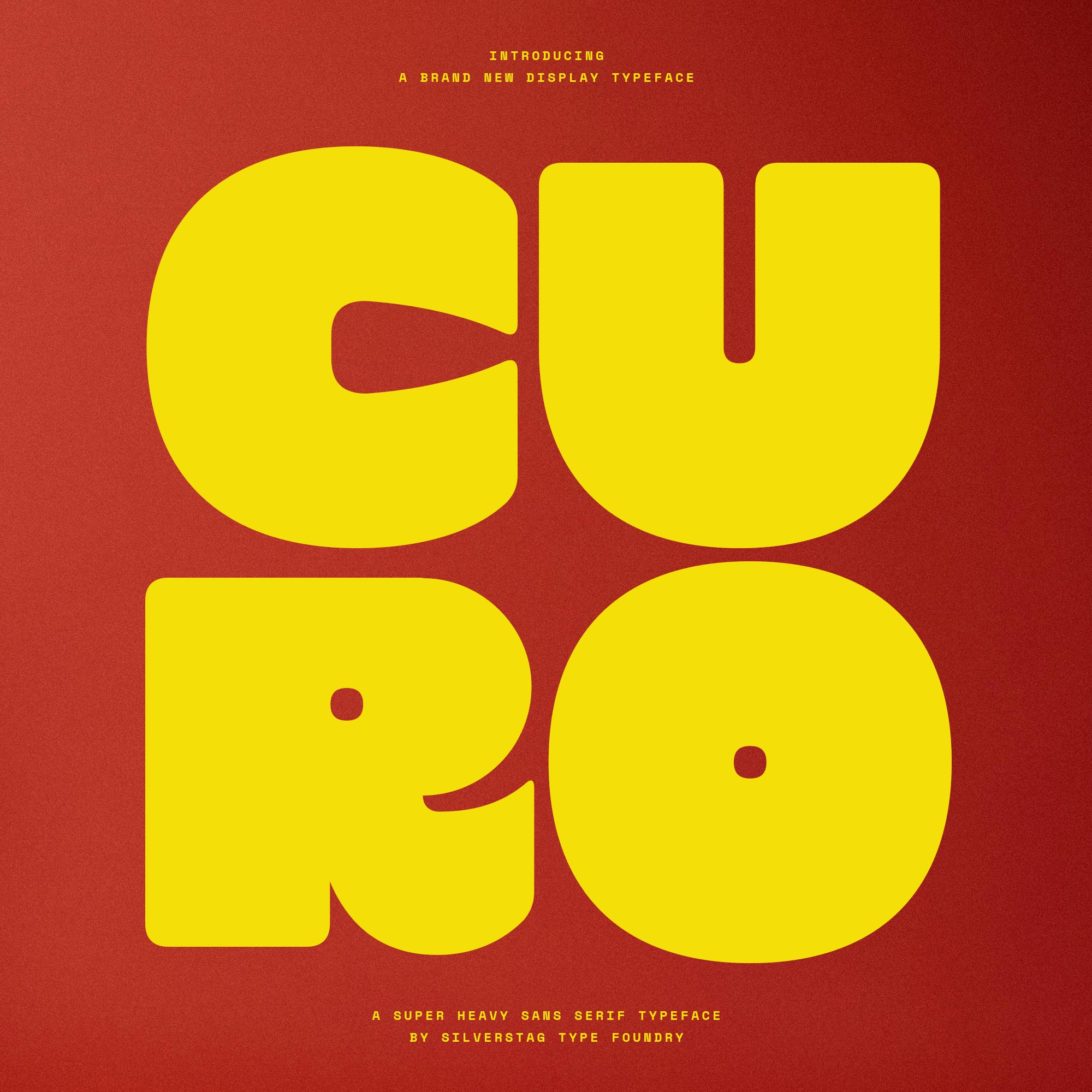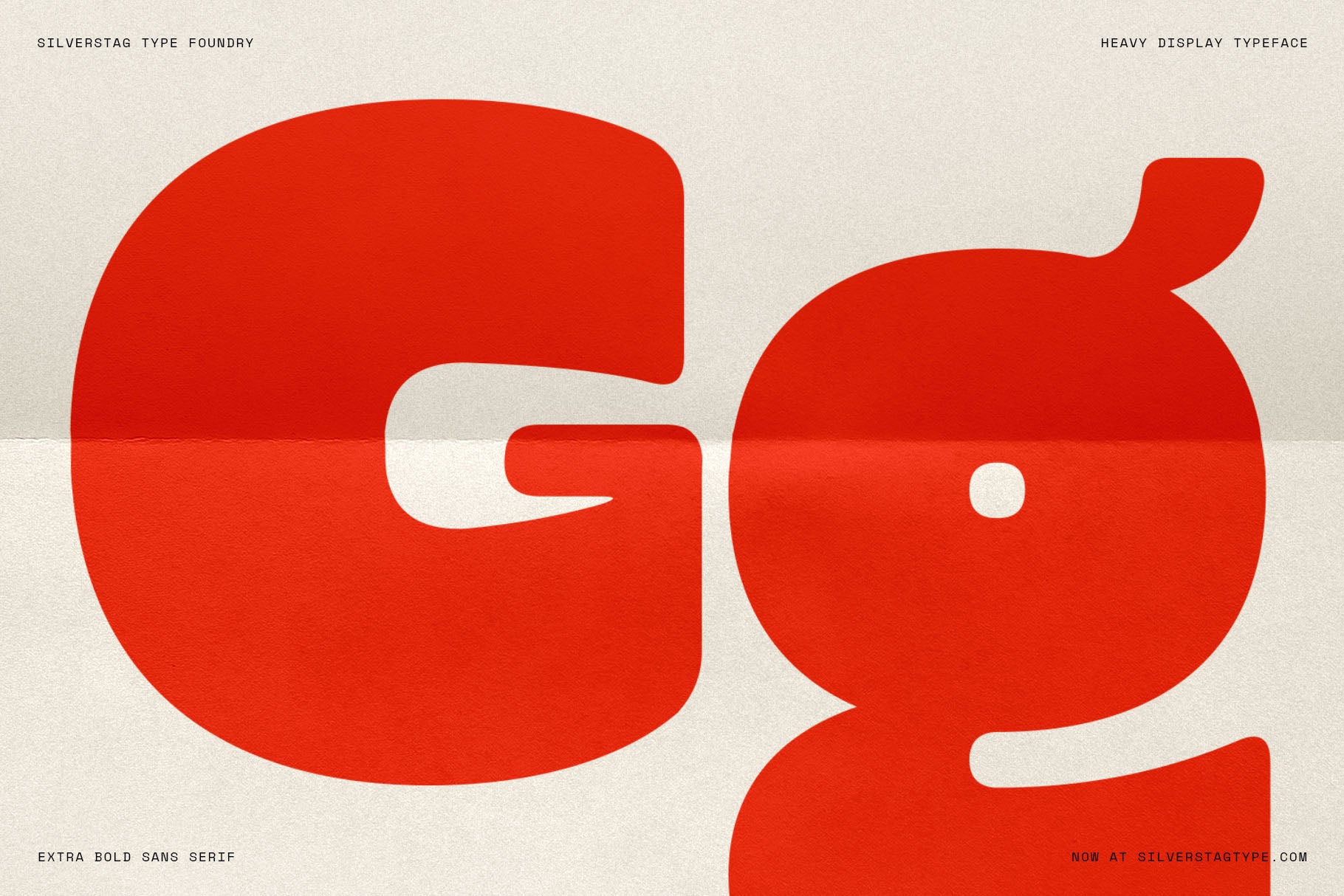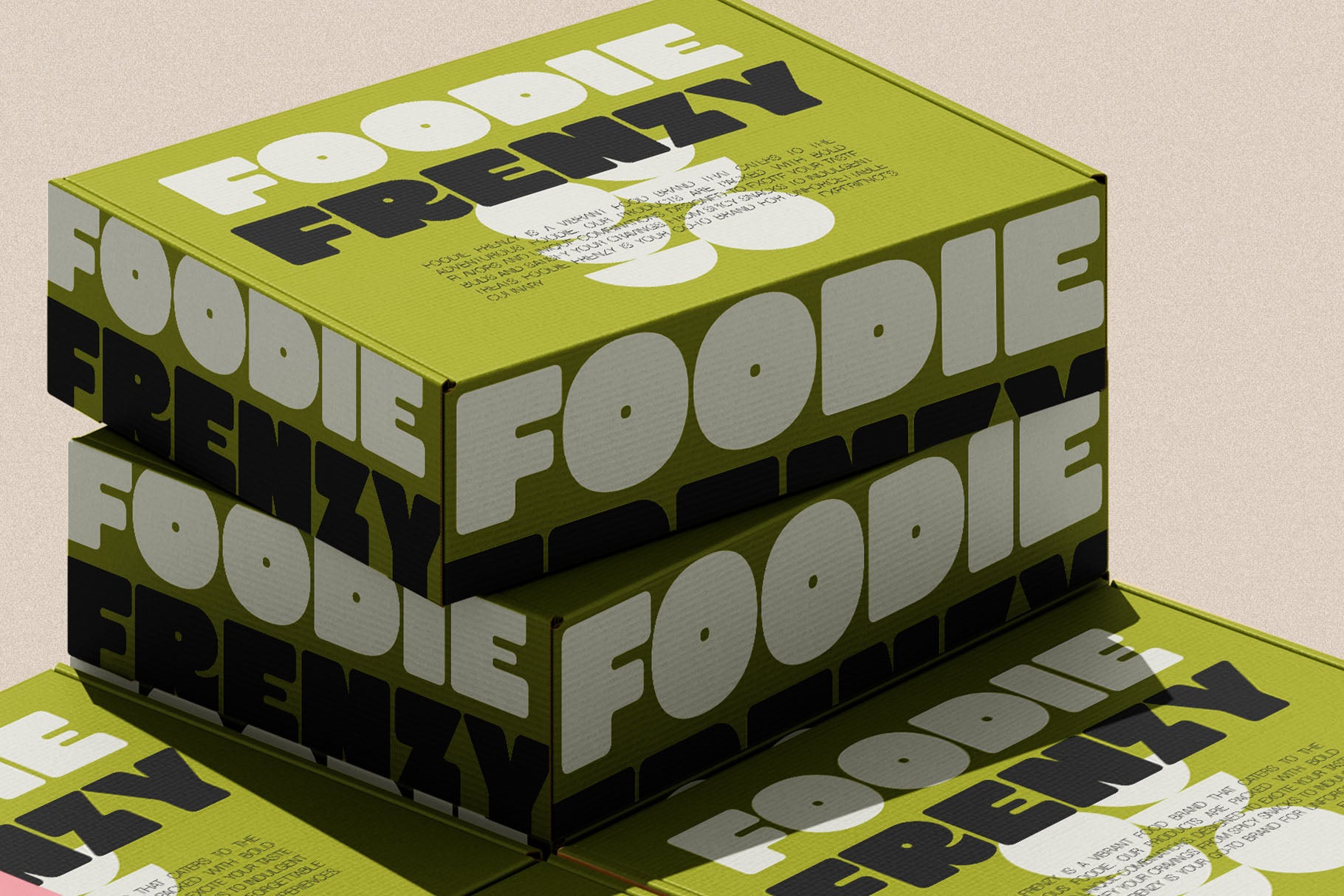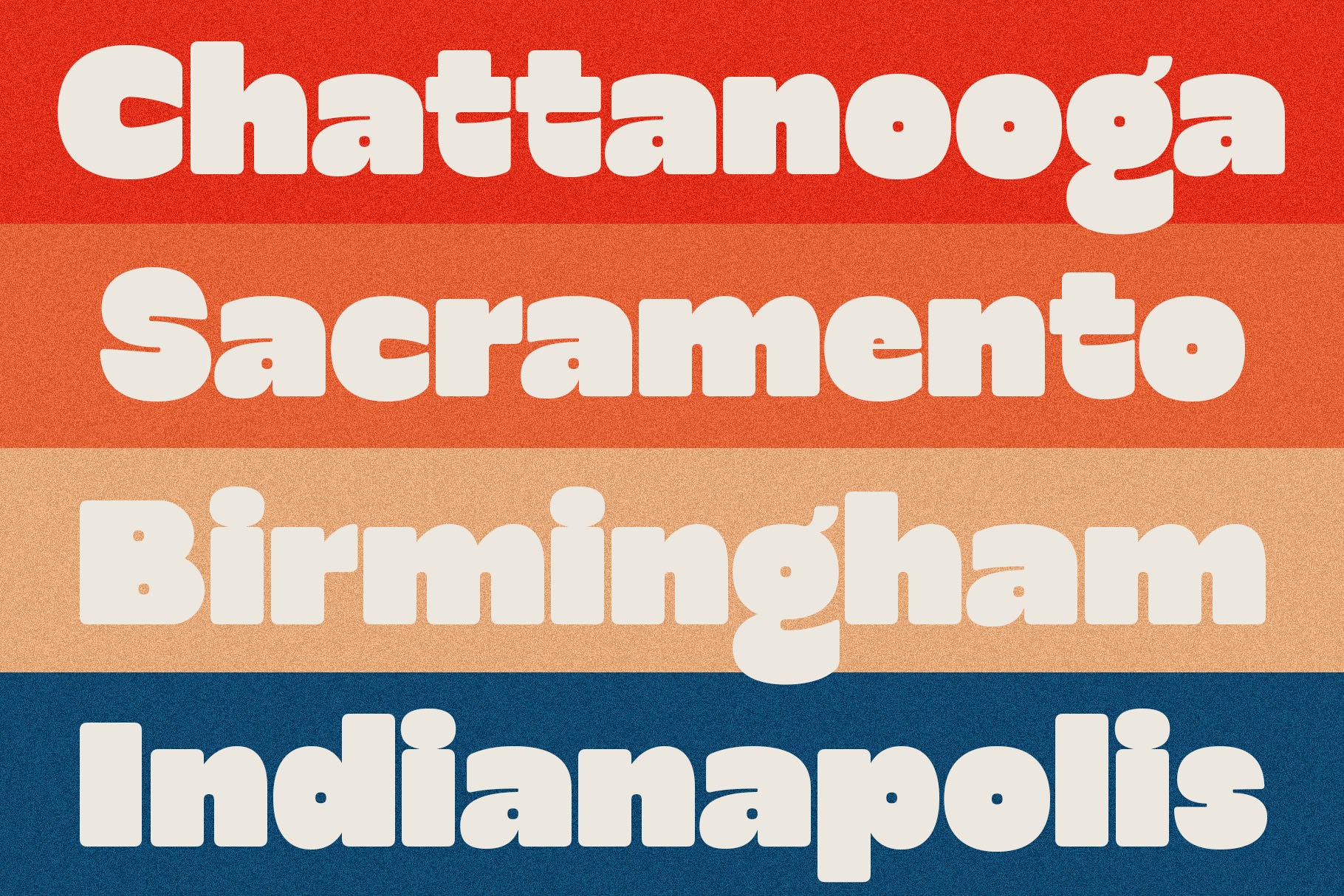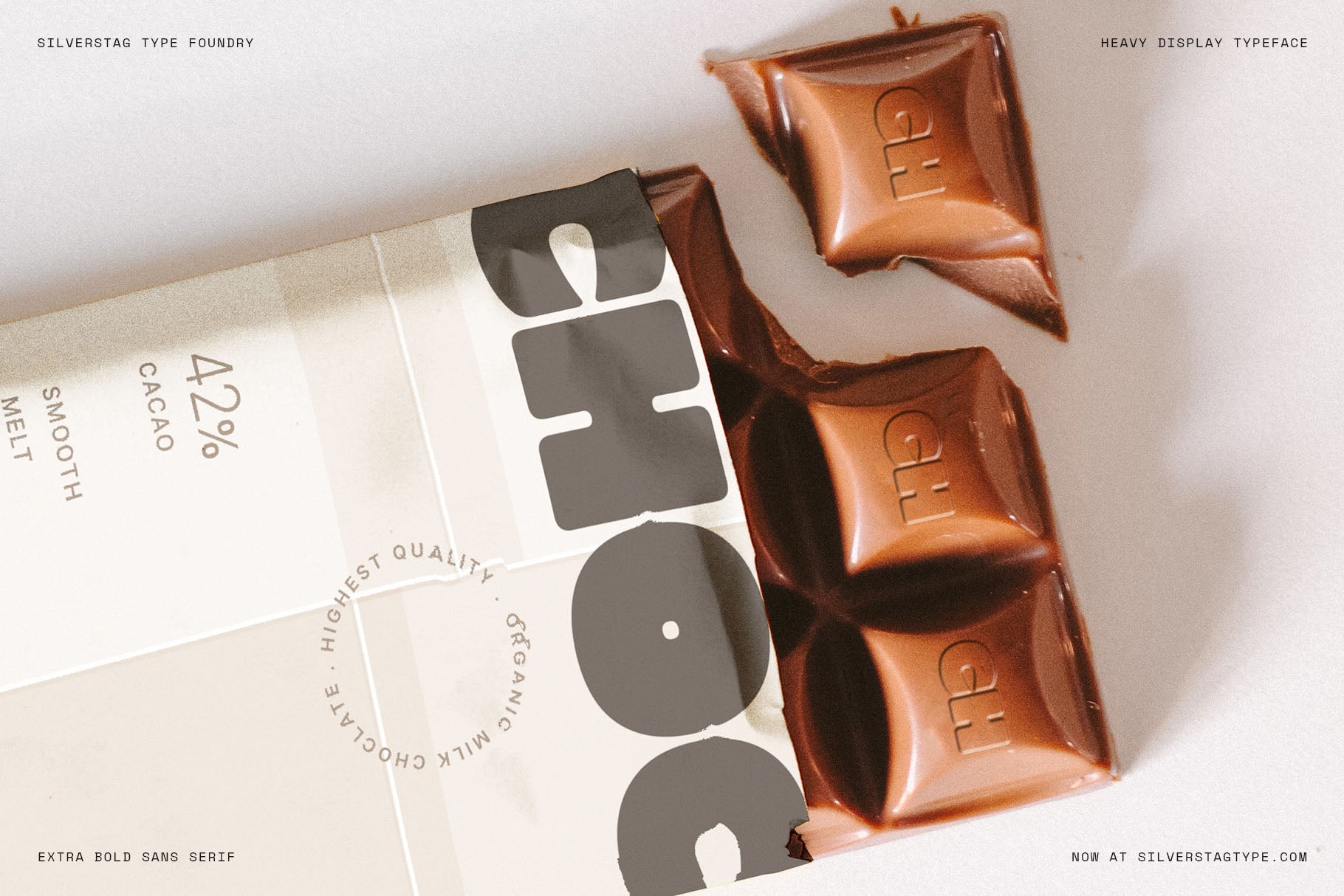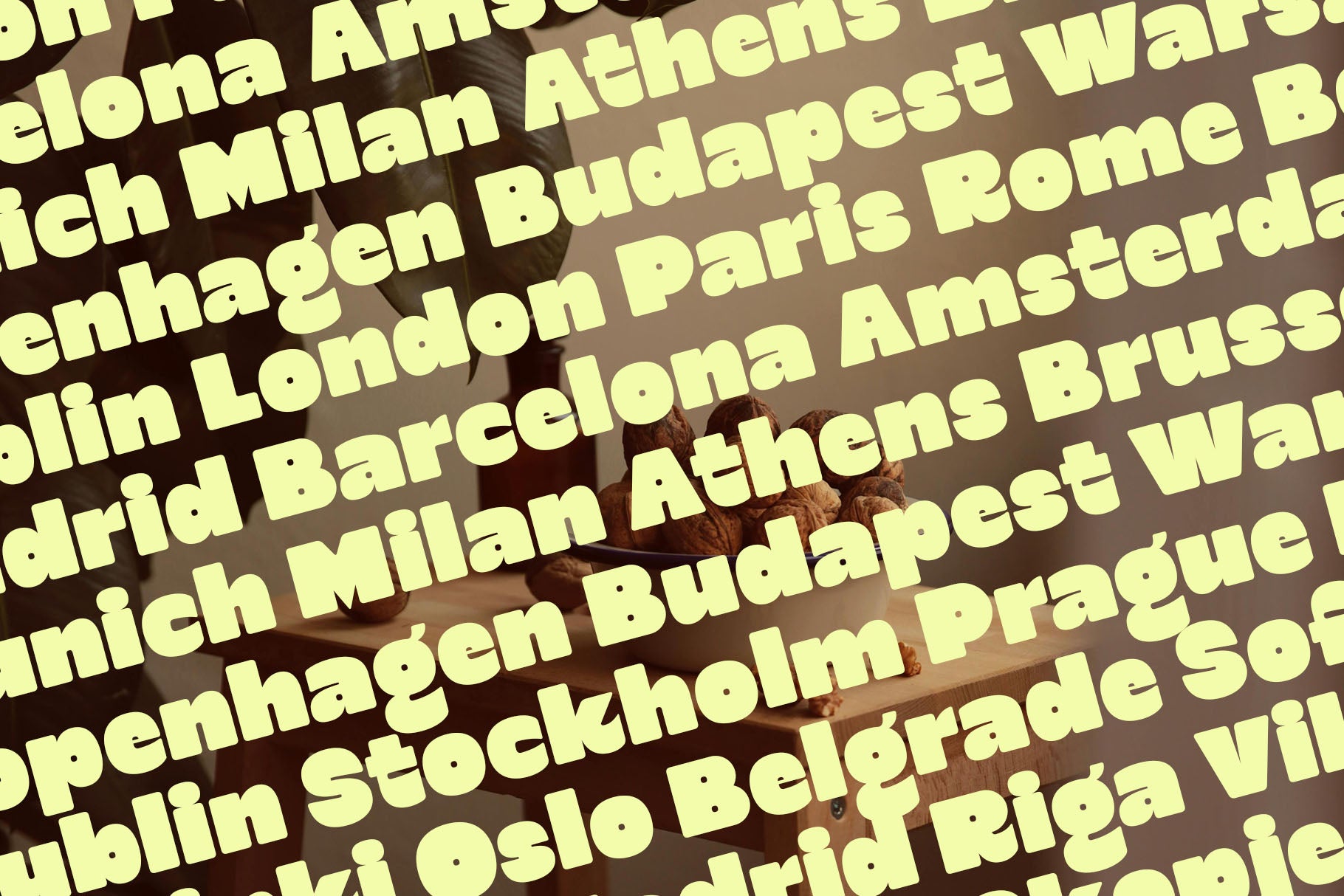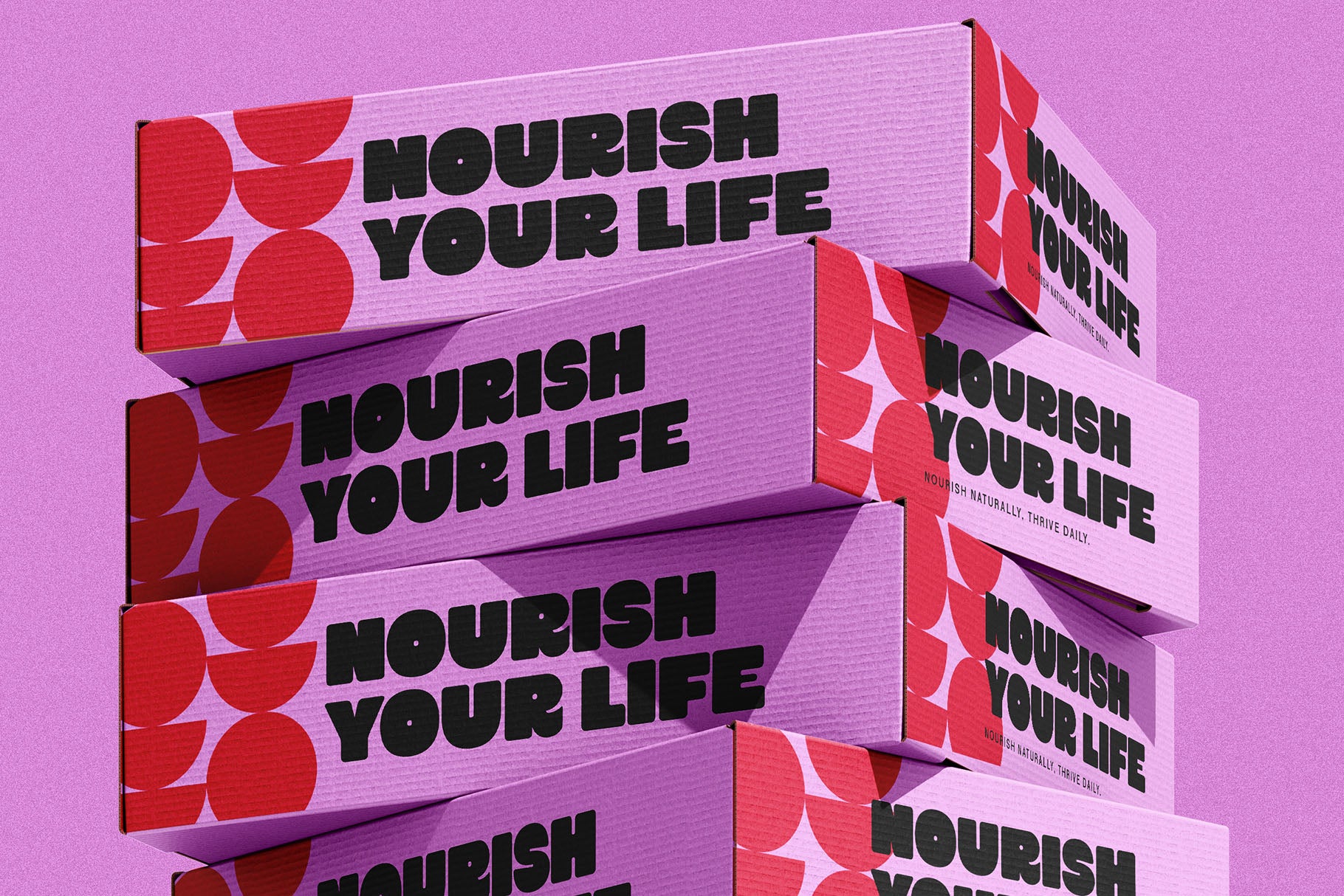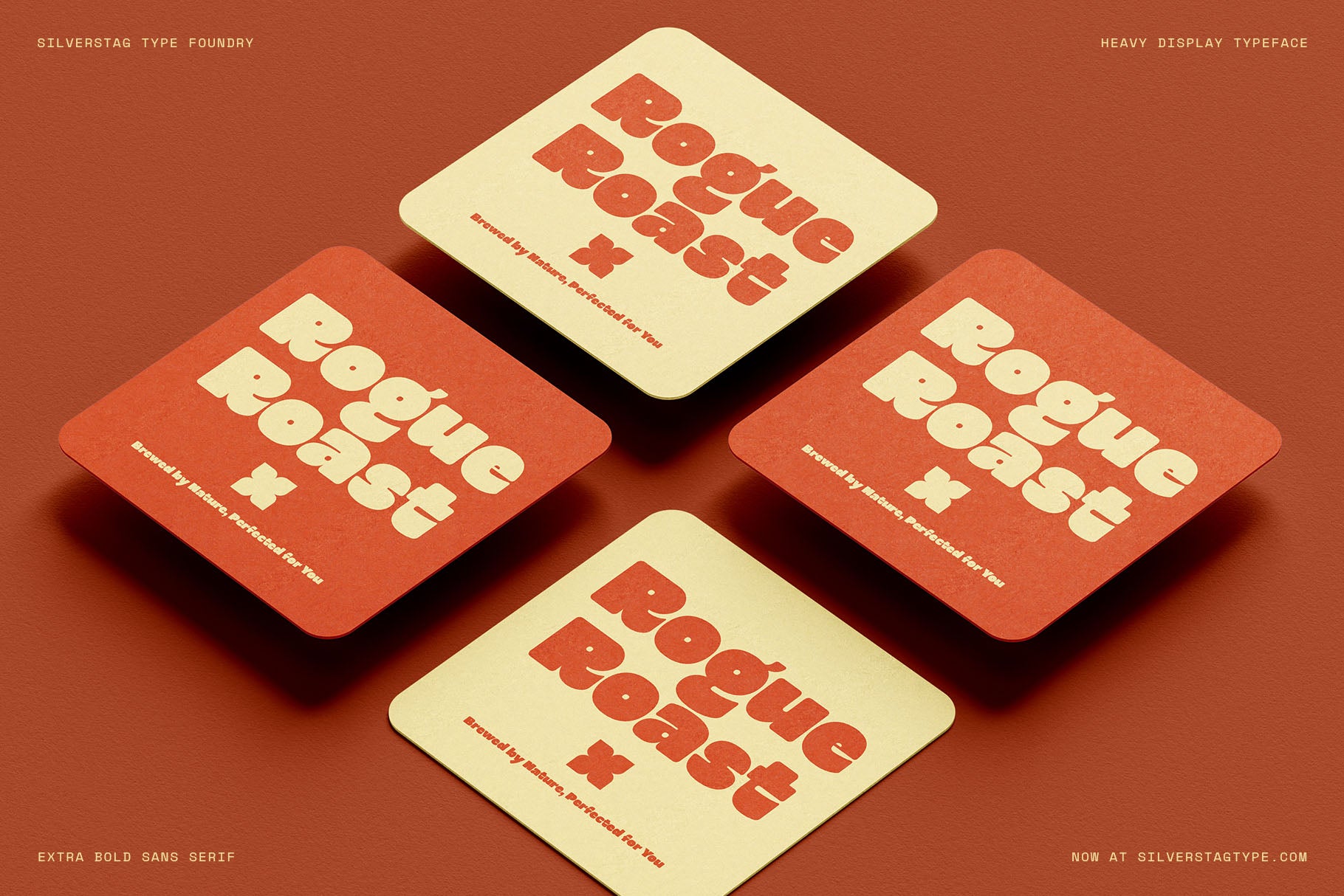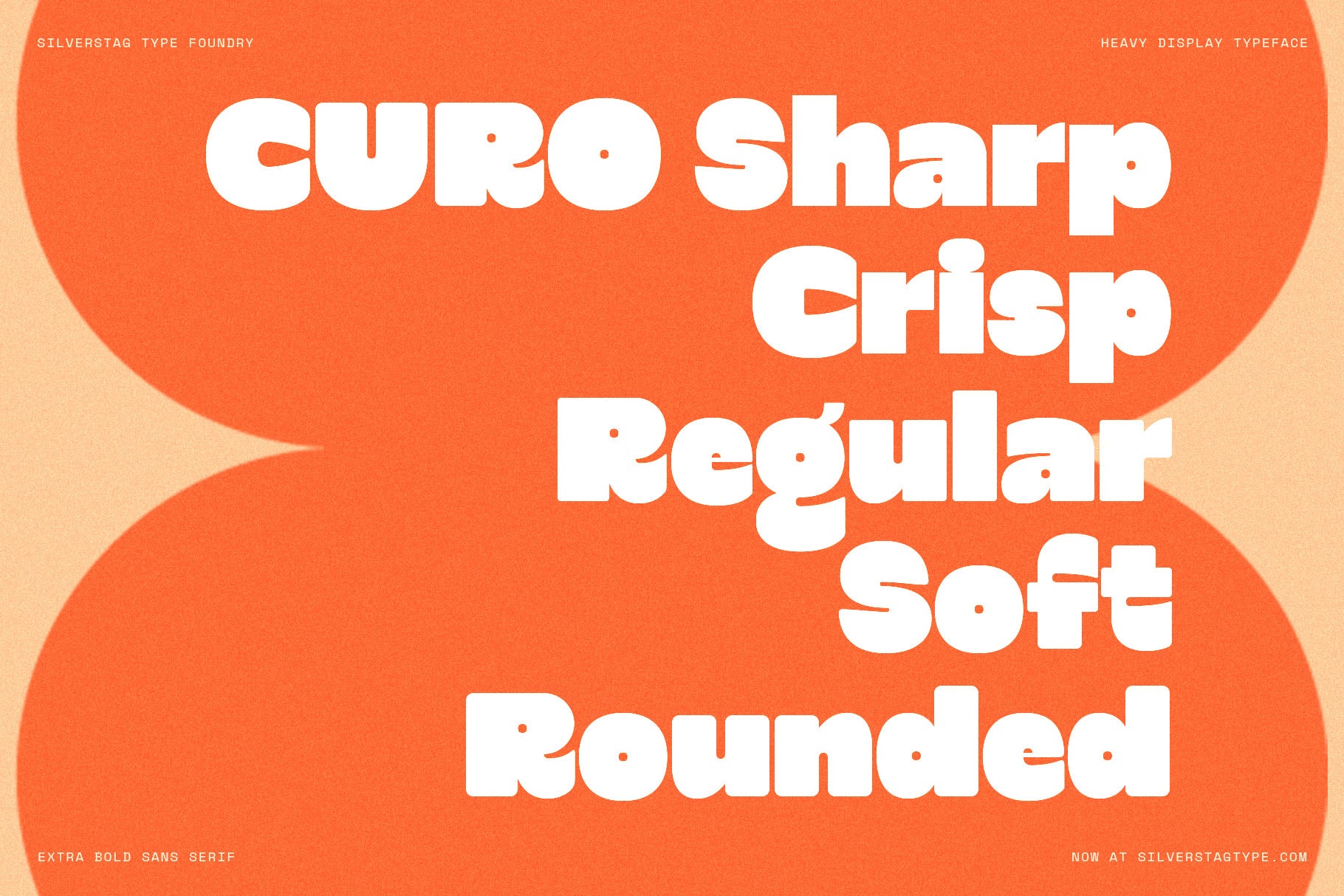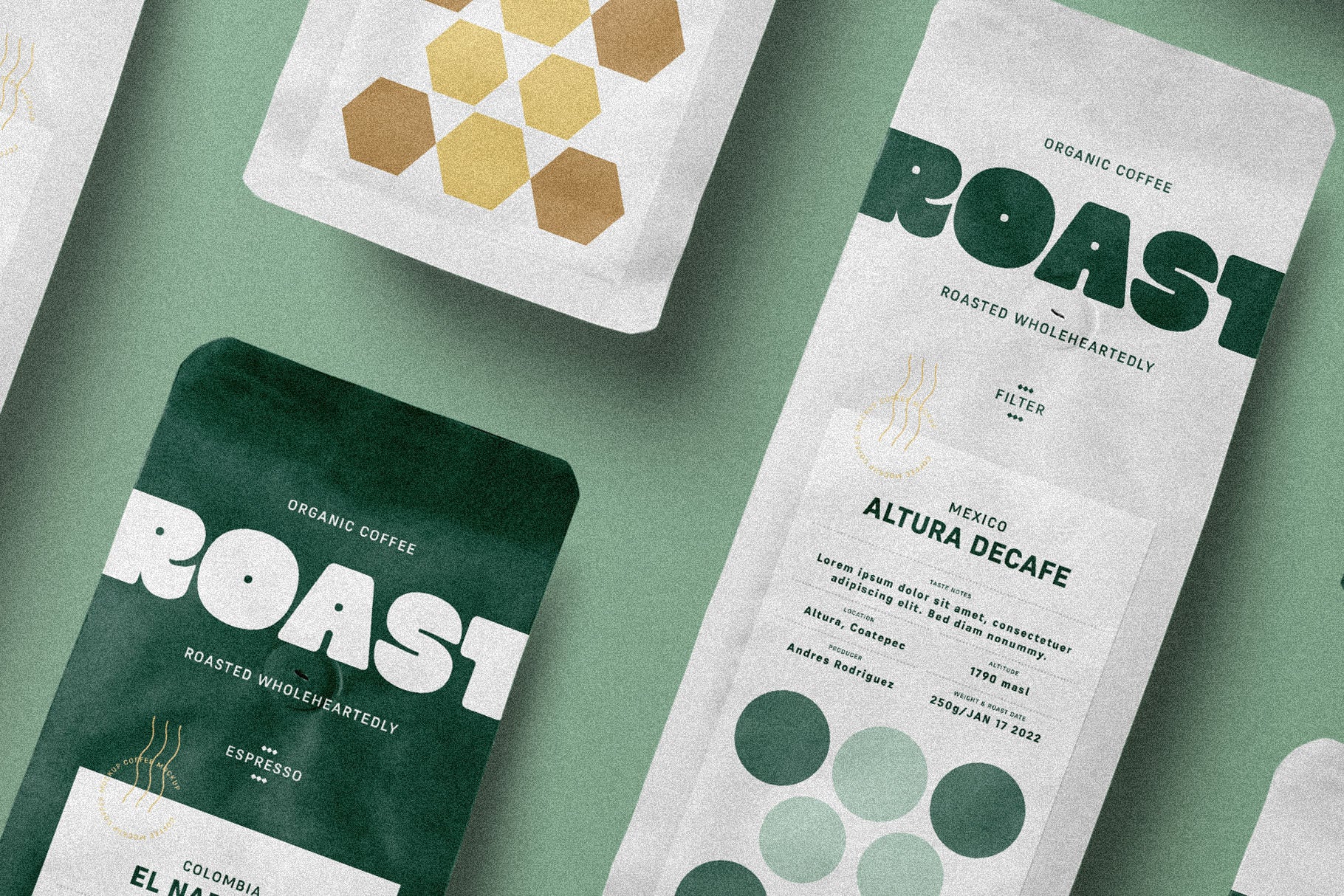
SLTF Curo - Heavy Display Typeface
SLTF Curo is a Heavy Display Typeface built around one uncompromising idea — that a single extreme weight should be able to carry any brand, in any direction, without compromise. It comes in five corner style variants that give designers complete tonal control within one cohesive family.
THE FIVE STYLES
Every variant shares the same super heavy mass, large x-height, and tight counter structure. What shifts is the corner — and with it, the entire personality of the font.
• Curo Sharp — hard-edged, angular, high tension. Built for streetwear, music, and brands that don't soften anything.
• Curo Crisp — slightly eased corners with all the sharpness intact. A refined edge for editorial and premium brand design.
• Curo Regular — the balanced center. Confident and versatile without leaning in either direction.
• Curo Soft — warm and approachable, with enough weight to still command attention.
• Curo Rounded — full, voluminous, almost tactile. The kind of bold that feels friendly and powerful at once.
WHAT IT'S BUILT FOR
• Brand identity and logo design
• Packaging and product labels
• Posters and event collateral
• Editorial headlines and magazine layouts
• Apparel, merchandise, and print
• Social media and digital campaigns
SLTF Curo is a Heavy Display Typeface designed to provide a single extreme weight across five distinct corner style variants—Curo Sharp, Curo Crisp, Curo Regular, Curo Soft, and Curo Rounded—each offering a unique personality while maintaining a cohesive family structure. This typeface features a super heavy mass, large x-height, and tight counter structure, making it suitable for various design applications.